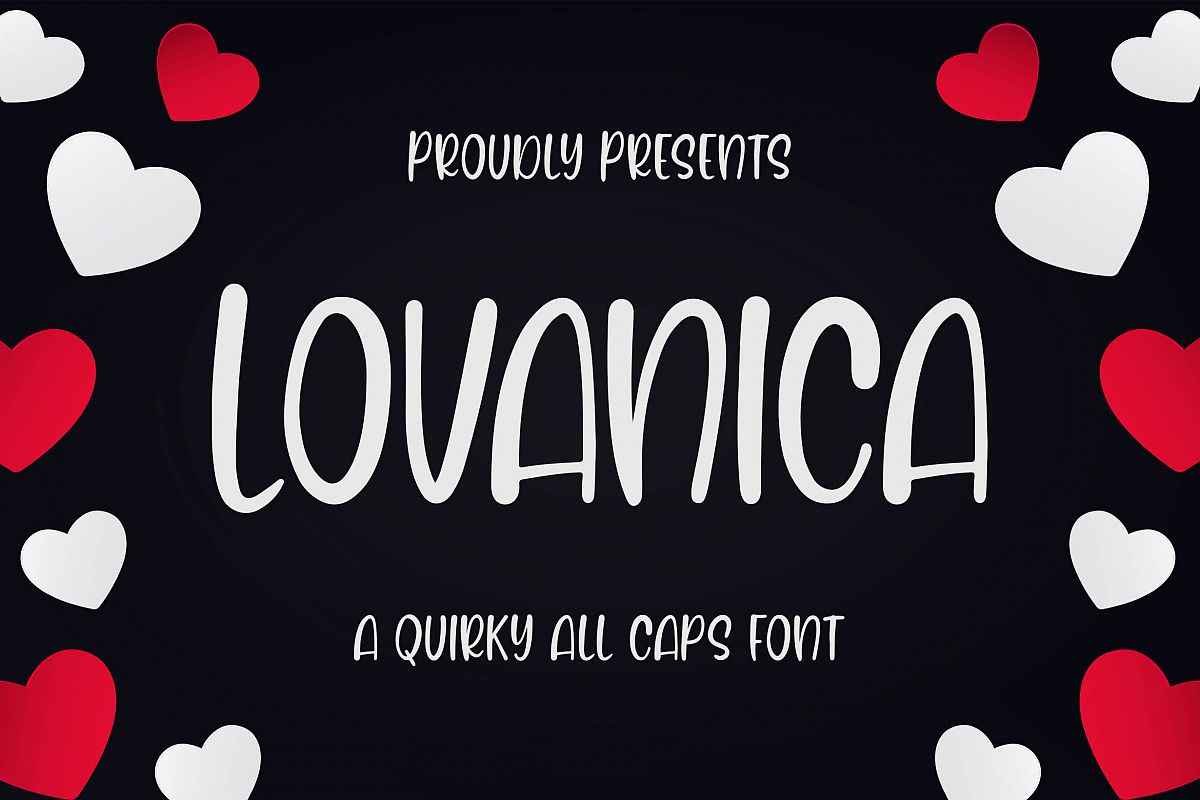
Lovanica - a Quirky Font
Introducing of our new product the name is Lovanica A Quirky Font. Lovanica inspired by cute romantic theme this font is a fun theme very good for Calligraphy serif, poster, food, wedding, branding etc